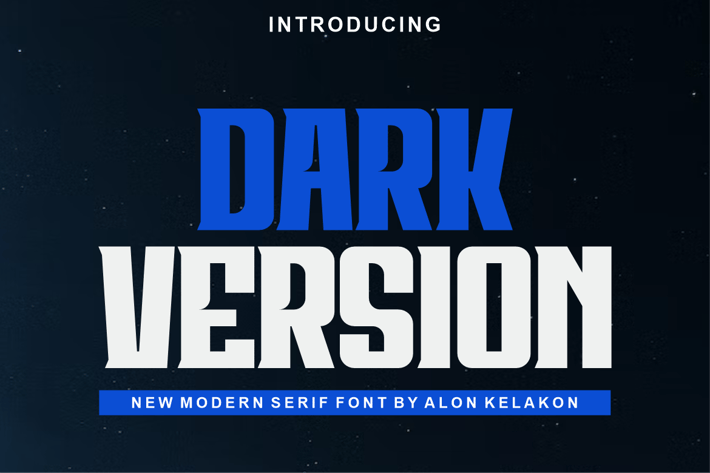
Dark Version Font
Dark Version - A Modern Serif Font
Introducing Dark Version, a bold and commanding serif font that blends classic elegance with a modern, edgy twist. Designed for impact, its strong letterforms and sharp serifs make it the perfect choice for projects that demand attention.
Dark Version is ideal for a wide range of uses, including striking headlines, powerful logos, album art, movie posters, and impactful social media graphics. It's a versatile font that can convey a sense of strength and sophistication. Whether you're working on a dark and mysterious theme or a clean and modern design, this font is ready to elevate your work.
Elevate your next project with the powerful presence of Dark Version.